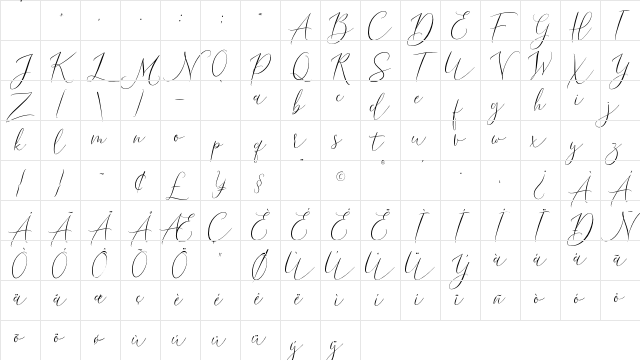
Complete Demo Dream Lavigne Script Regular glyph index. Displaying only characters natively supported by Demo Dream Lavigne Script Regular font.
Demo Dream Lavigne Script flows with the natural rhythm of handwritten lettering, making it ideal for designs that call for warmth and personal expression.
Font Pairing: Combine Demo Dream Lavigne Script with a simple geometric sans for maximum contrast - the tension between flowing curves and clean structure is a classic typographic pairing.
Pro Tip: Use Demo Dream Lavigne Script for short runs of text - names, titles, or taglines. Extended body copy in script faces tires the eye quickly.